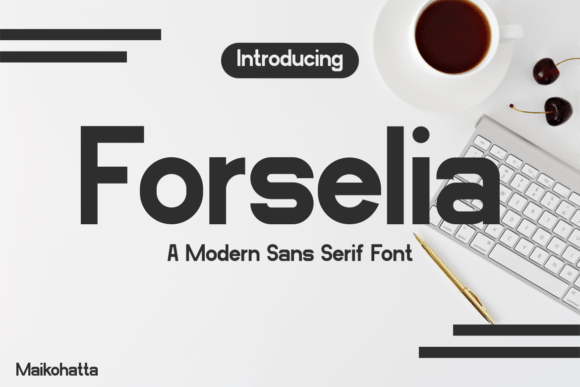
Introducing Forselia Font, the epitome of elegance and sophistication. This sans serif font is a visual masterpiece, captivating audiences with its clean lines, remarkable legibility, and a touch of timelessness. Created by the renowned font designer maikofarazhatta, Forselia stands as a testament to artistic brilliance.
Step into a realm of boundless creativity, where Forselia's versatility knows no bounds. With its ability to seamlessly blend into various design contexts, this font is a true chameleon, adapting effortlessly to diverse projects. Whether you're crafting a professional document, designing an eye-catching logo, or creating stunning web graphics, Forselia will elevate your designs to new heights of sophistication.
With its crisp and modern aesthetic, Forselia exudes an air of professionalism, making it the perfect choice for crafting formal documents, such as resignation letters, reports, and presentations. Its ability to convey a sense of authority and clarity ensures that your words command attention and make a lasting impression.
Journey through a world of visual appeal as Forselia's simplicity and visual elegance take center stage. The font's carefully crafted letterforms strike a perfect balance between readability and aesthetics, ensuring that your designs captivate and engage your audience. Let Forselia's harmonious curves and sharp angles create a visual symphony that resonates with your viewers.